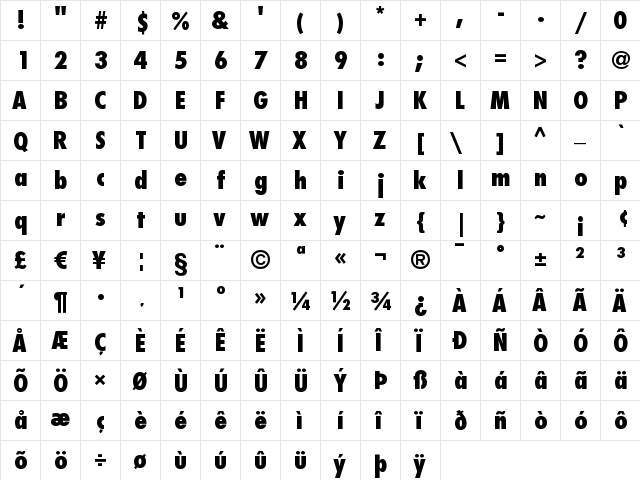
Futura LT CondensedExtraBold Font Preview
Design Context for Futura LT Typeface
Futura LT channels digital-age aesthetics through its sharp, structured letterforms — ideal for brands that want to signal innovation. The heavy weight commands attention and anchors typographic hierarchies. The condensed width makes it efficient for tight spaces without sacrificing legibility.
Pro Tip: Use Futura LT in combination with a neutral sans for body text. Let it define the brand voice in headlines while keeping reading comfortable elsewhere.